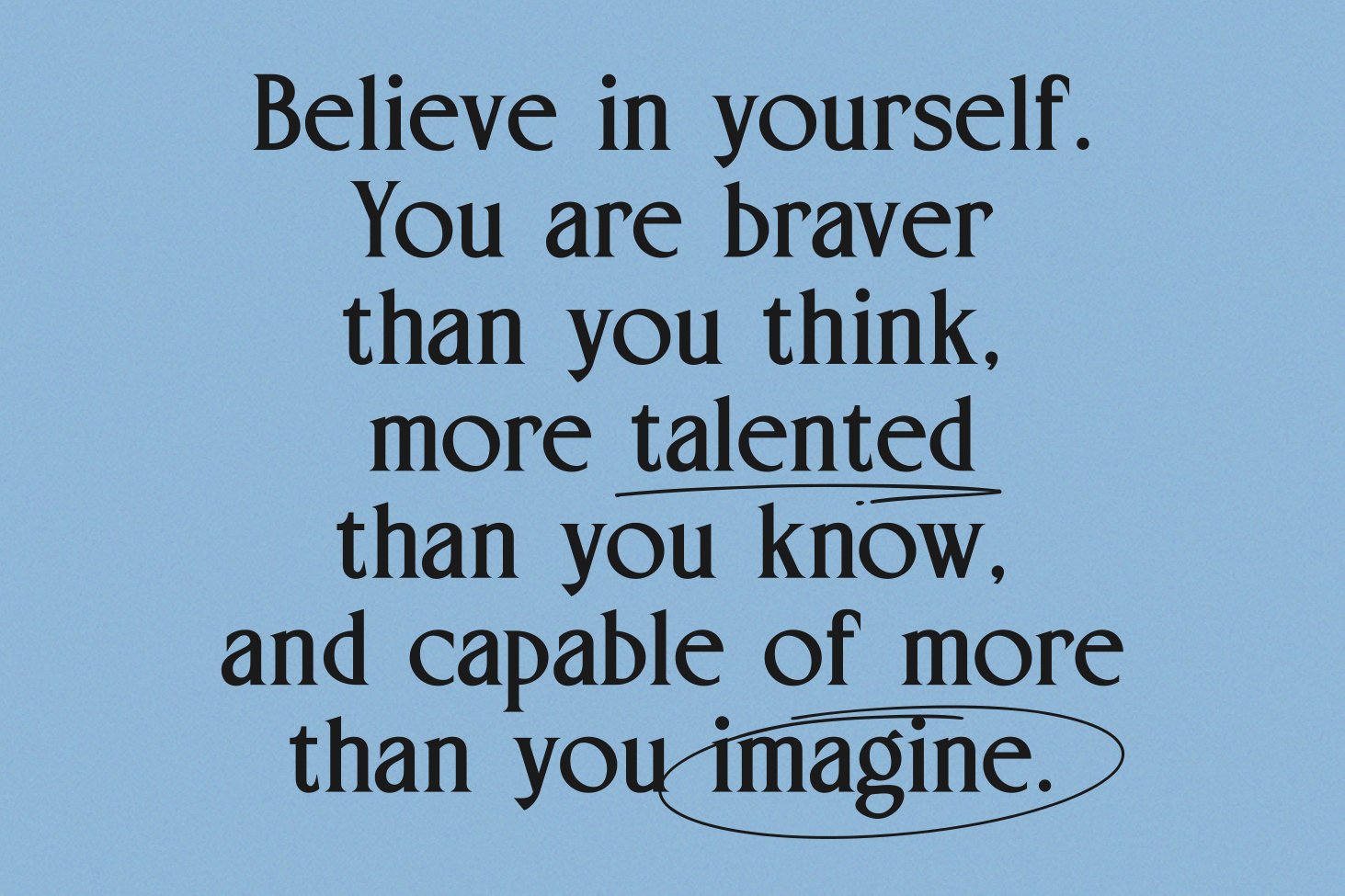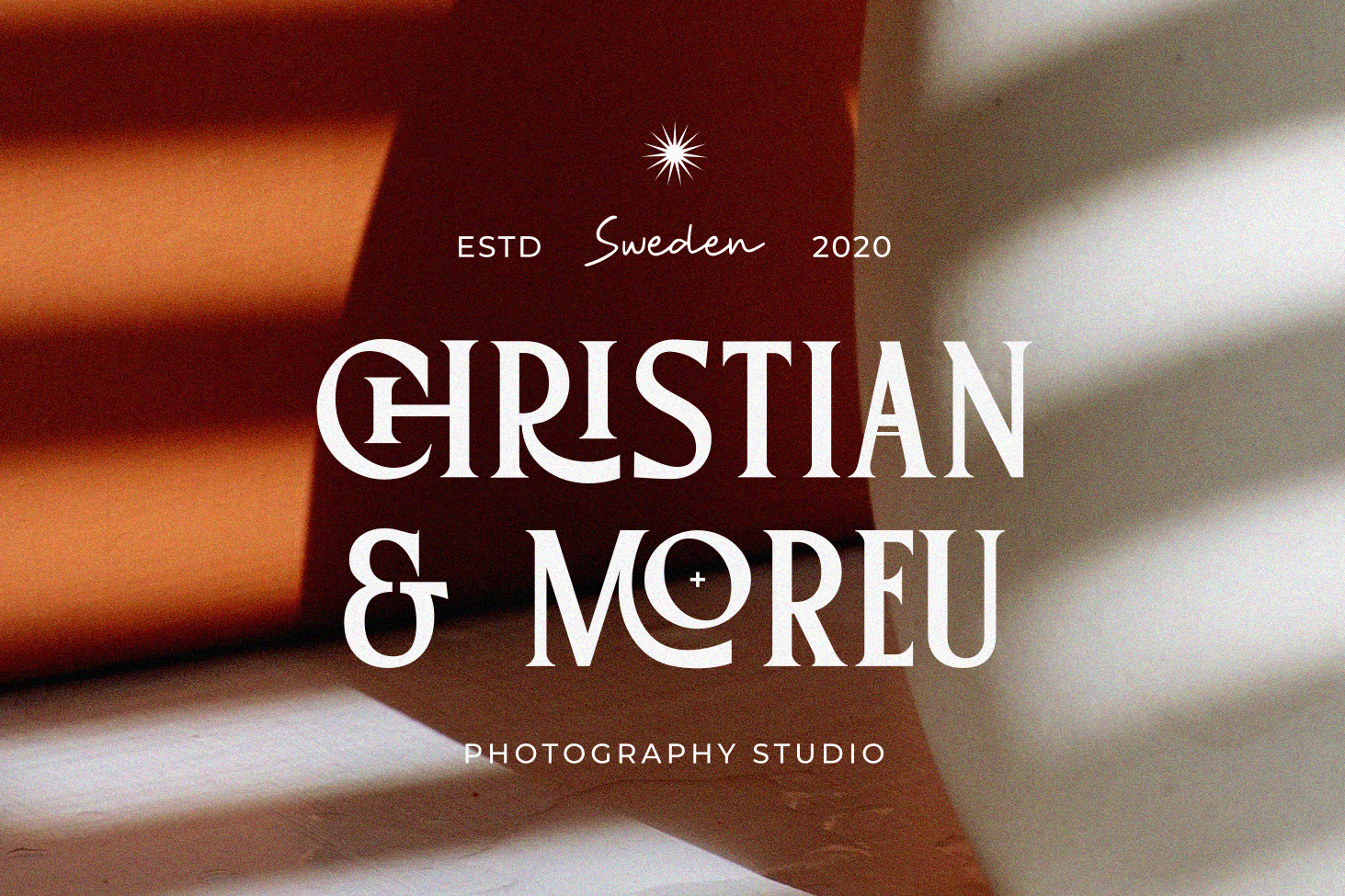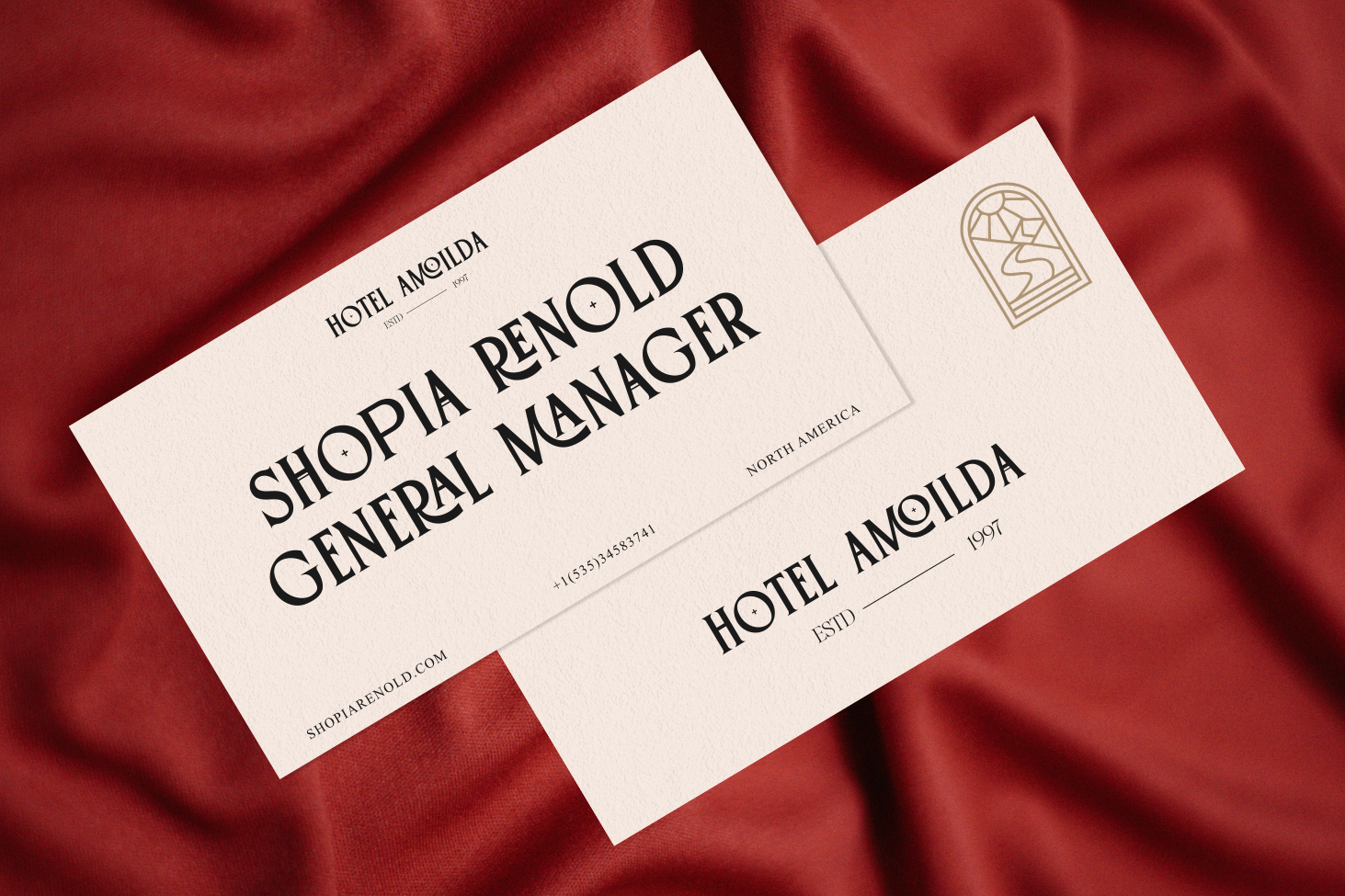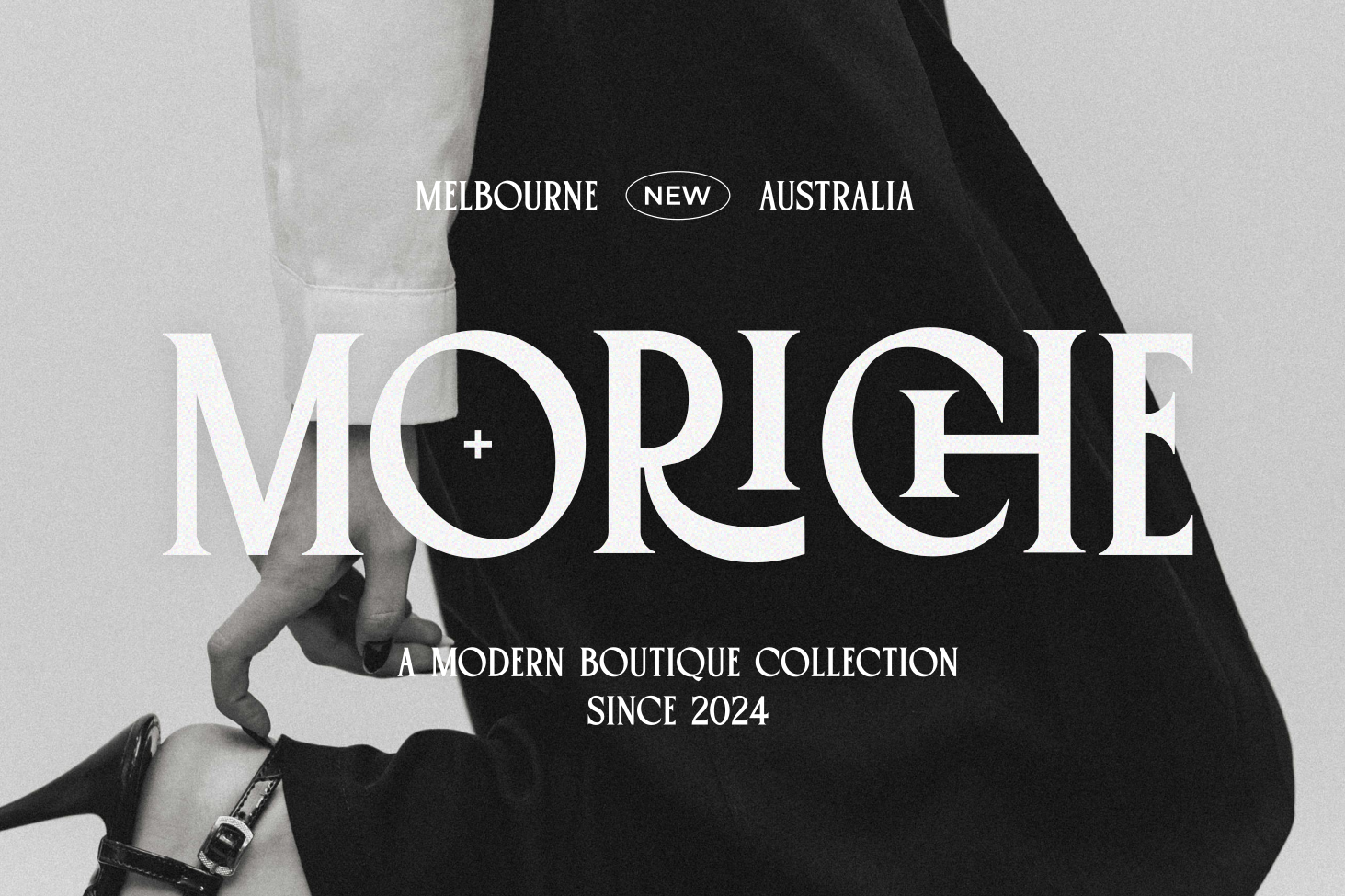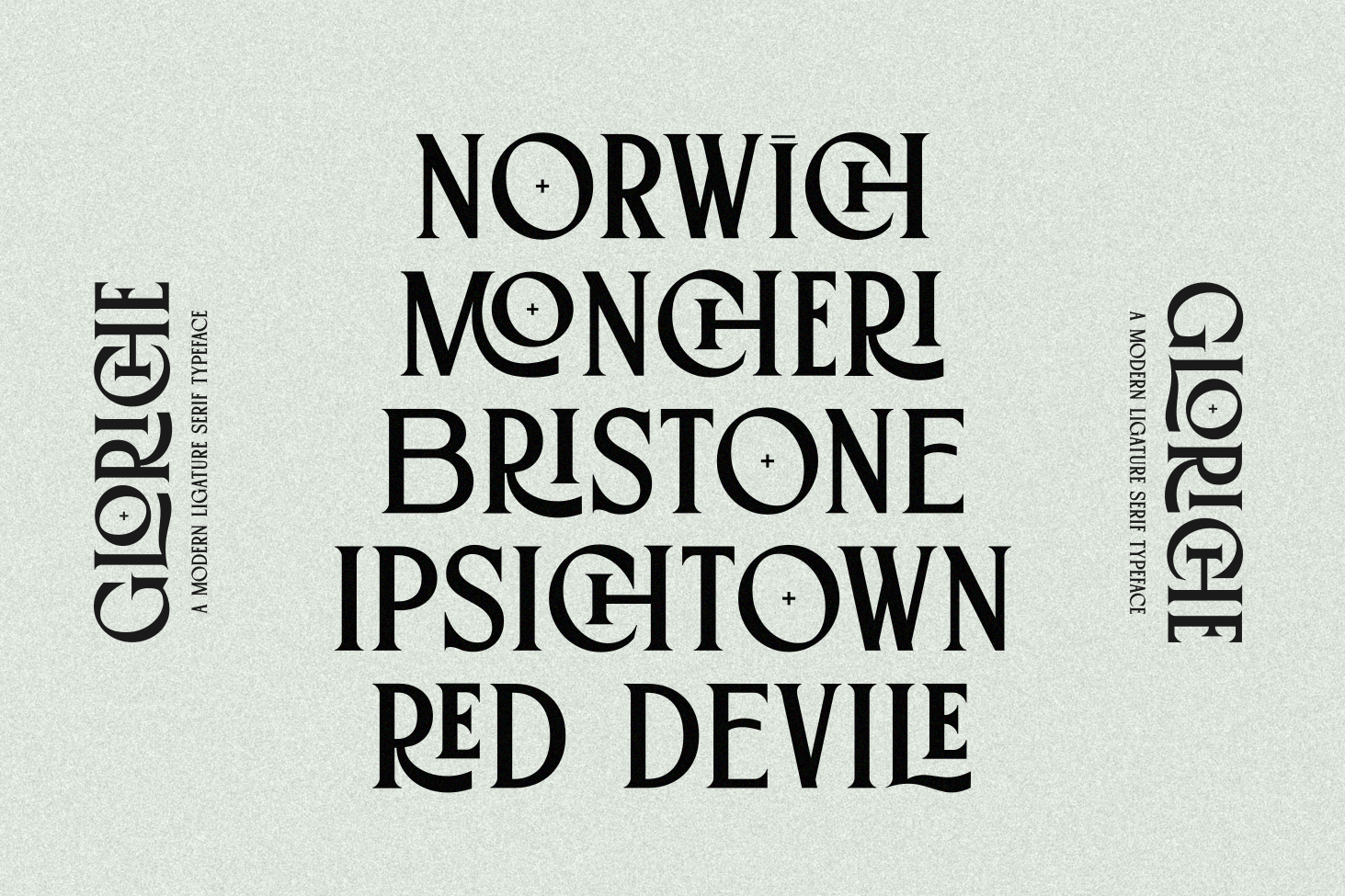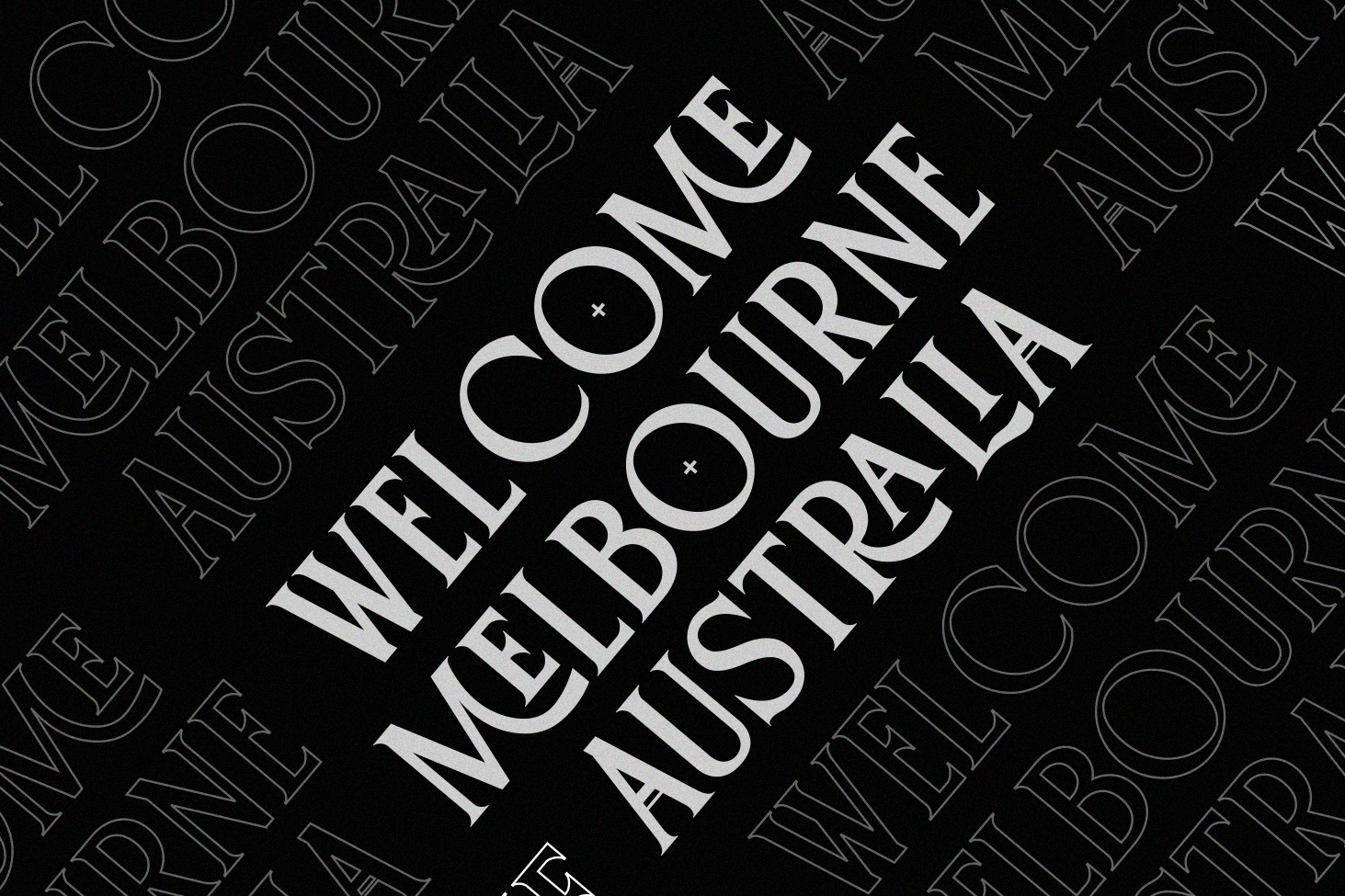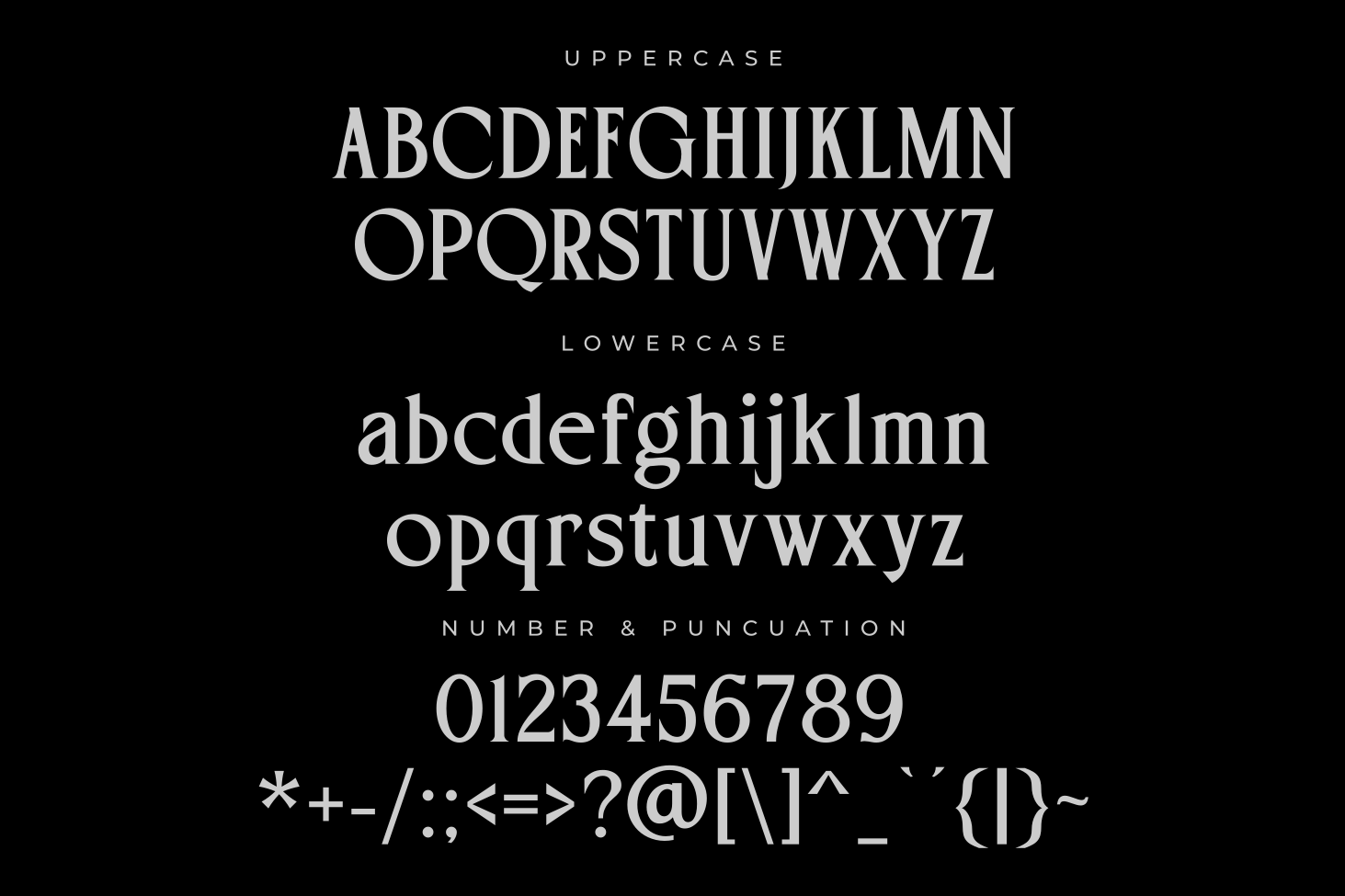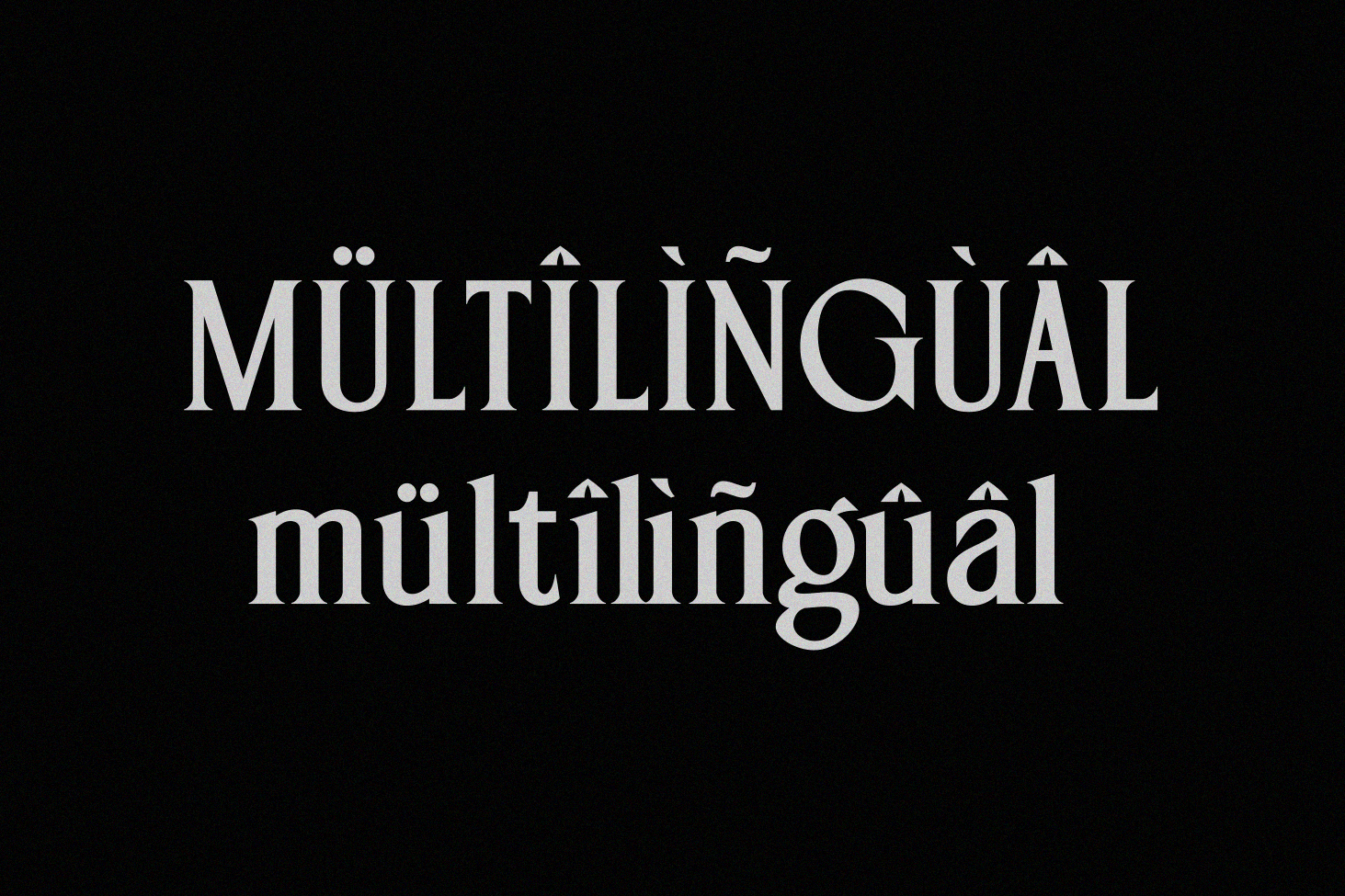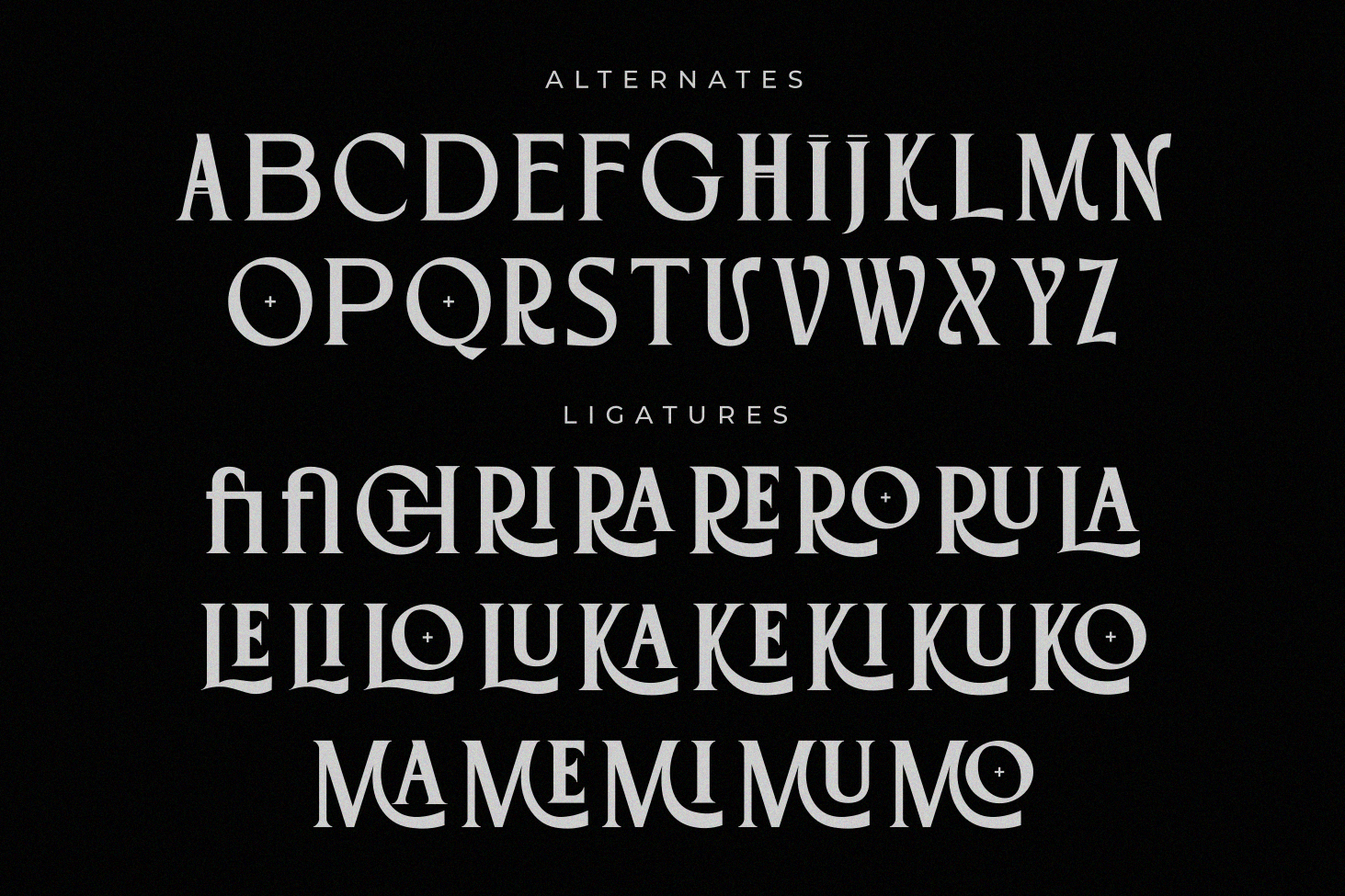
Gloriche
Gloriche by zeenesia is a refined and captivating typeface that effortlessly blends modern elegance with timeless charm. Its sleek design features a series of meticulously crafted ligatures, each adding a touch of sophistication and fluidity to your text. Perfectly suited for branding, editorial design, or any creative project, Glorich elevates the visual experience with its bold yet graceful presence. Its strikingly modern appeal, coupled with delicate curves and harmonious connections, makes it the ideal choice for those seeking both style and uniqueness in typography.